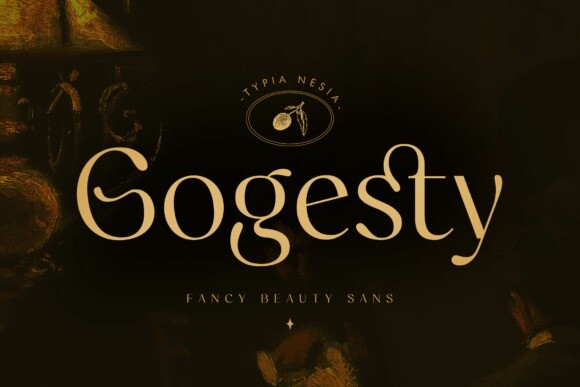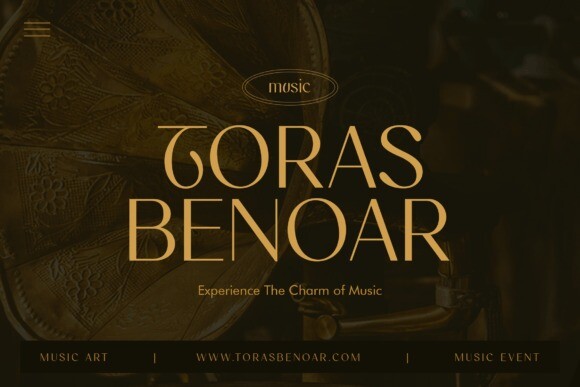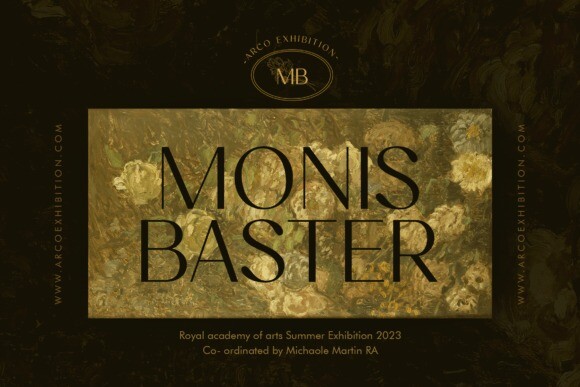
Gogesty Font
Gogesty – Classy Beauty Elegant Aesthetic Sans Serif – Expressive Romantic Feminine Lovely Font
Gogesty Sans Serif comes with some alternates and ligatures, so you can combine it to make a perfect typography design. It is perfect for your up coming projects. Such as luxury logo and branding, classy editorial design, woman magazine, cosmetic brand, fashion promotional, art gallery branding, museum, historical of architectural, boutique branding, stationery design, blog design, modern advertising design, card invitation, art quote, home decor, book/cover title, special events and any more.